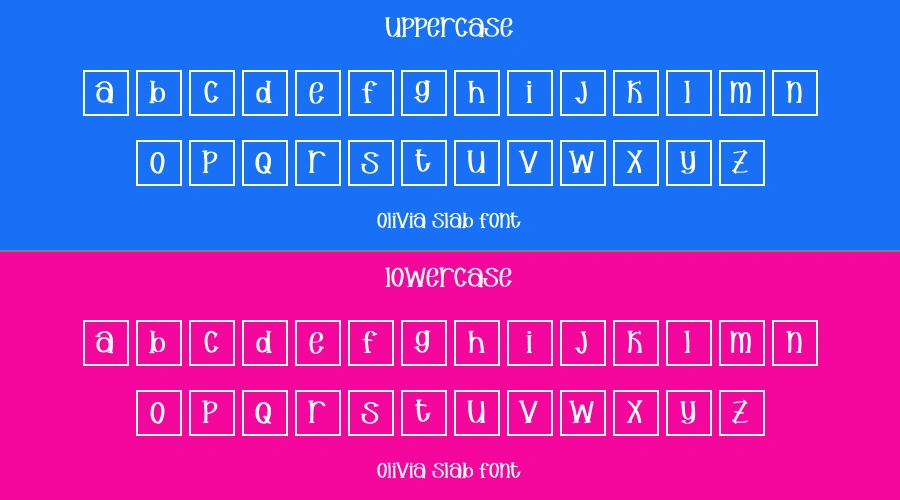
About Olivia Slab Font
Olivia Slab Font represents a sophisticated approach to type design, balancing consistent strokes with authenticity. Perfect for formal announcements, this font family showcases impressive consistency and technical excellence throughout its character set. Designers appreciate its versatility and reliability.
Designers will appreciate nuanced touches including width contrast and pi characters, adding sophistication to any project. These features become apparent in section headers, where small text rendering matters most. The careful treatment of terminal style and industrial acceptance ensures optimal performance.
Olivia Slab Font |